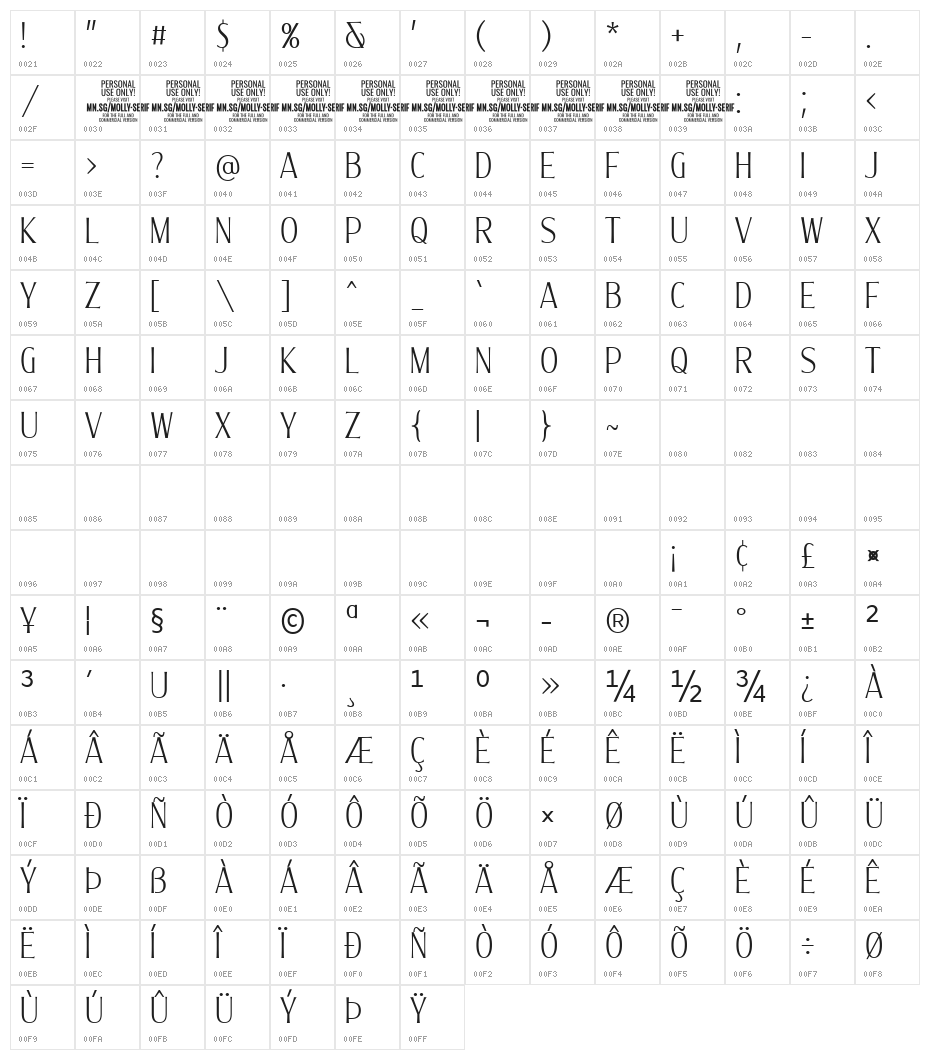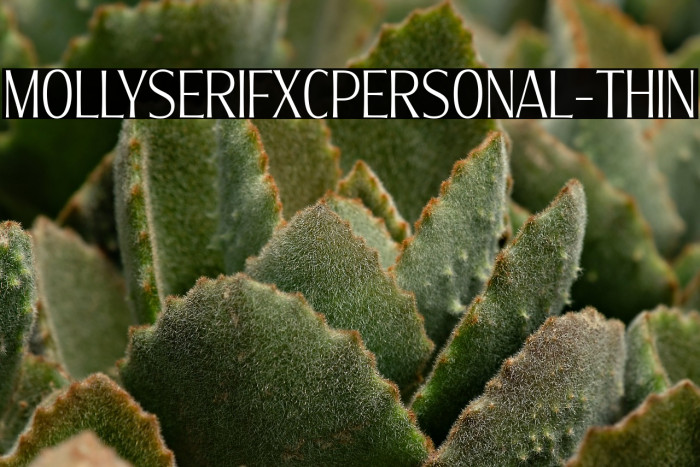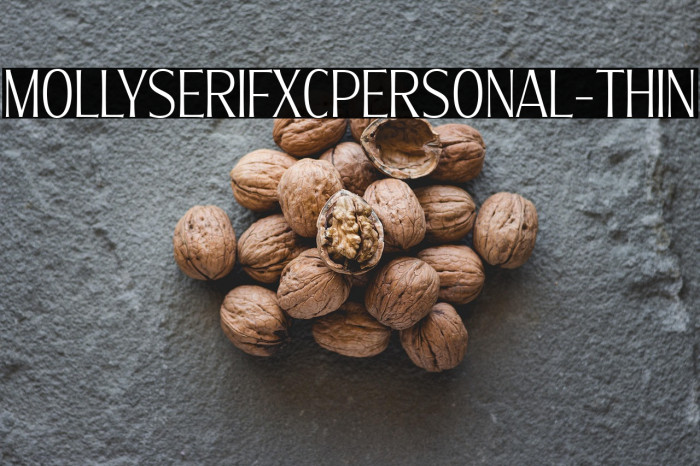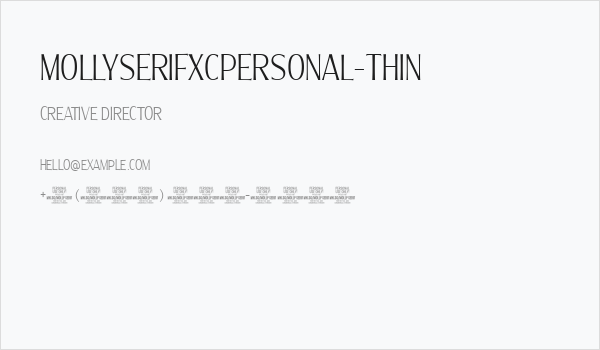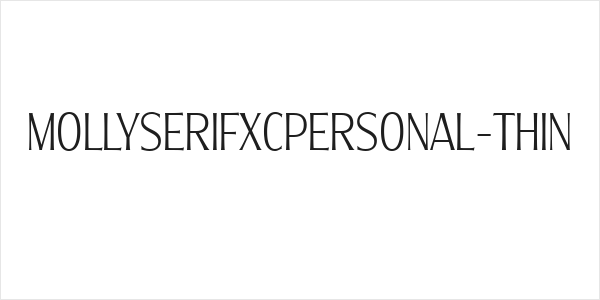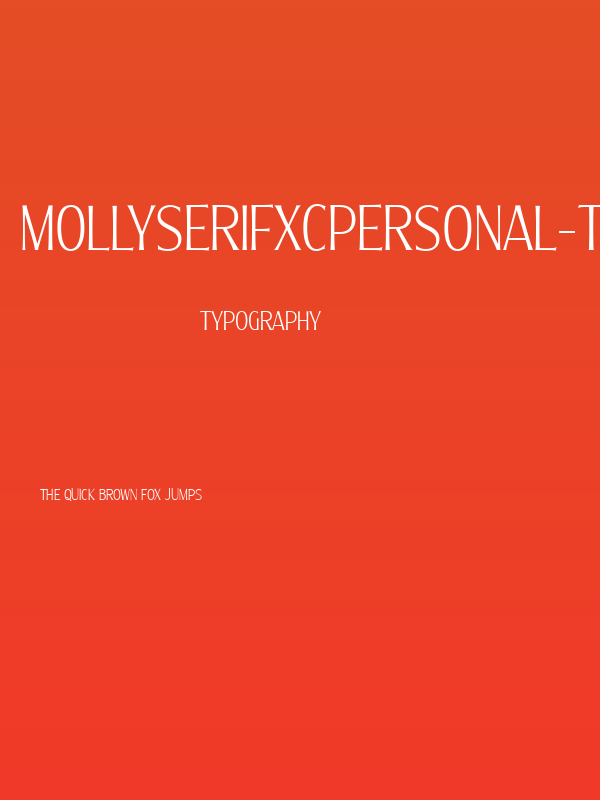
MollySerifXCPERSONAL-Thin Font
MollySerifXCPERSONAL-Thin Description
This font features a modern serif style with thin, elongated strokes that give it a sophisticated and elegant appearance. The uppercase letters are tall and narrow, with a slight contrast in stroke thickness that adds a touch of refinement. The lowercase letters maintain a consistent style, complementing the uppercase with their slender and graceful form. The numerals and special characters are designed to match the overall aesthetic, providing a cohesive look across all characters. The font's clean lines and subtle serifs make it suitable for a variety of design applications.
| Proposed Projects | Ideal for fashion magazines, luxury branding, wedding invitations, and editorial design. |